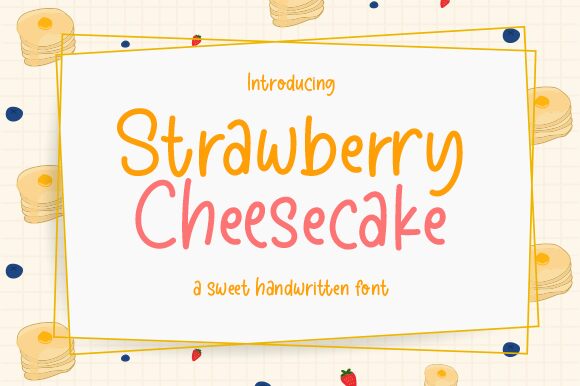
Introducing Strawberry Cheesecake, a beautiful handwritten font designed by Aldi Raya Pradipta. This light weight font is perfect for crafting eye-catching logos, posters, and social media posts. It's also ideal for adding a personal touch to invitations, greeting cards and other printables.